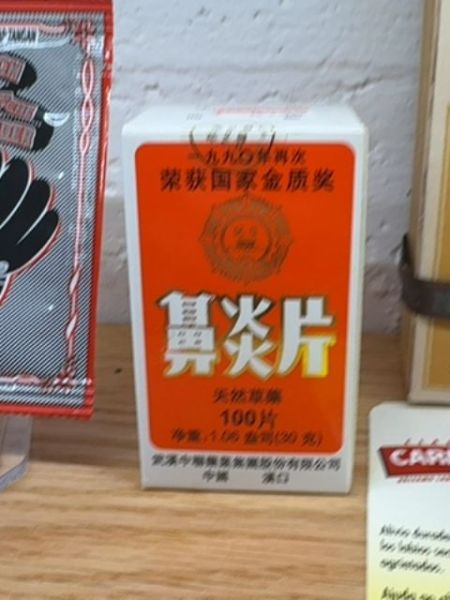
鼻炎片
A pharmaceutical product designed for treating nasal inflammation or rhinitis.
China
The main typography is bold and sans-serif, ensuring readability and impact. The use of white lettering against the orange background creates a striking contrast, drawing attention to the product name. Additional text uses a smaller, simpler font for supplementary details, maintaining clarity and structure.
The packaging is a rectangular box with a bright orange background that stands out on the shelf. It features bold Chinese characters in white, contrasting against the vivid background, and includes additional information in smaller text below.
- The product is used for nasal inflammation.
- It contains traditional Chinese medicine ingredients.
- The package holds 100 tablets.